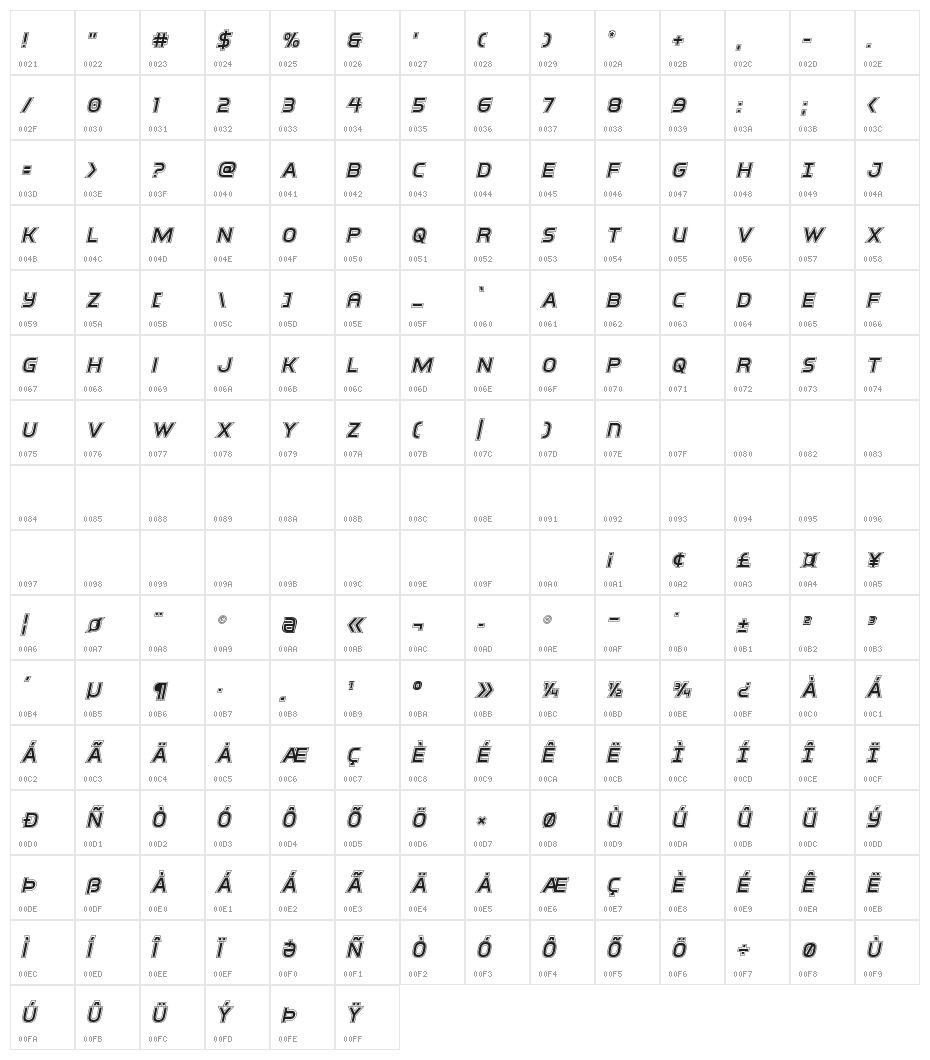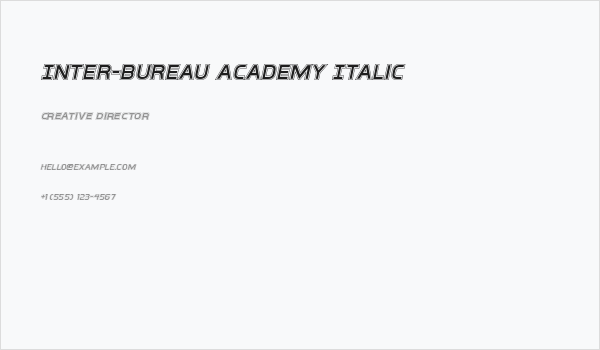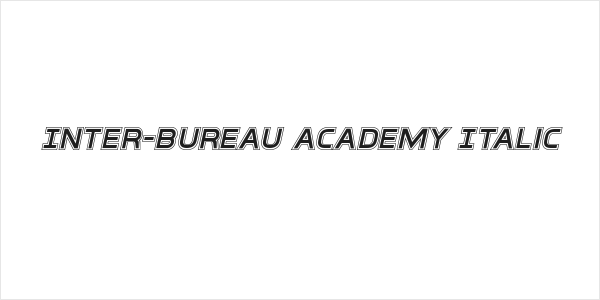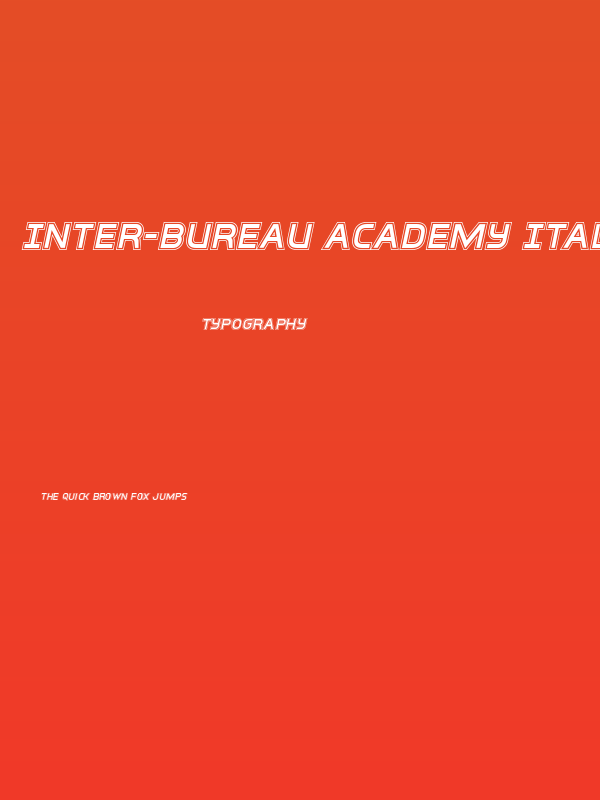
Inter-Bureau Academy Italic Font
Inter-Bureau Academy Italic Description
This font features a bold, italicized style with a distinct outline that gives it a three-dimensional appearance. The characters are uppercase and lowercase letters, numerals, and a variety of special symbols. The design is modern and dynamic, with a slight slant that adds a sense of motion and energy. The strokes are consistent in width, providing a uniform look across all characters. The spacing between characters is normal, ensuring readability while maintaining the font's bold aesthetic. This font is suitable for projects that require a strong visual impact.
| Proposed Projects | Ideal for sports branding, dynamic posters, and eye-catching headlines. |